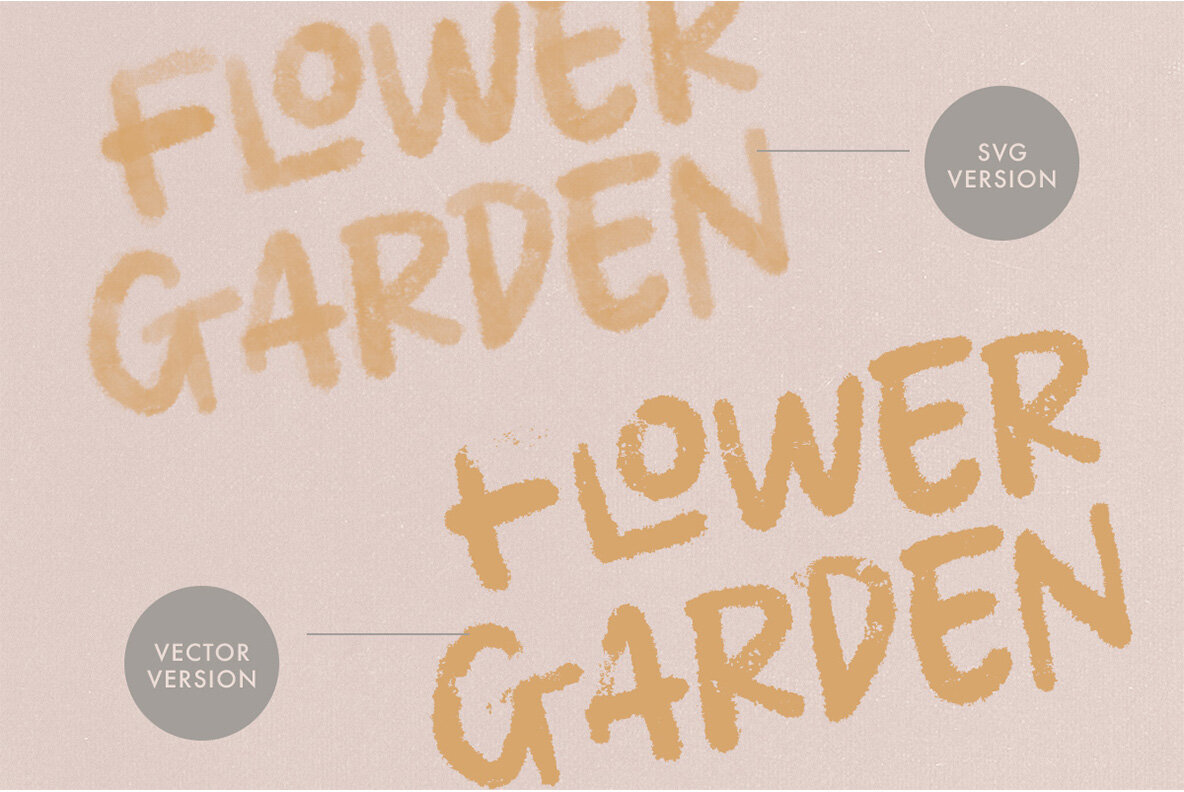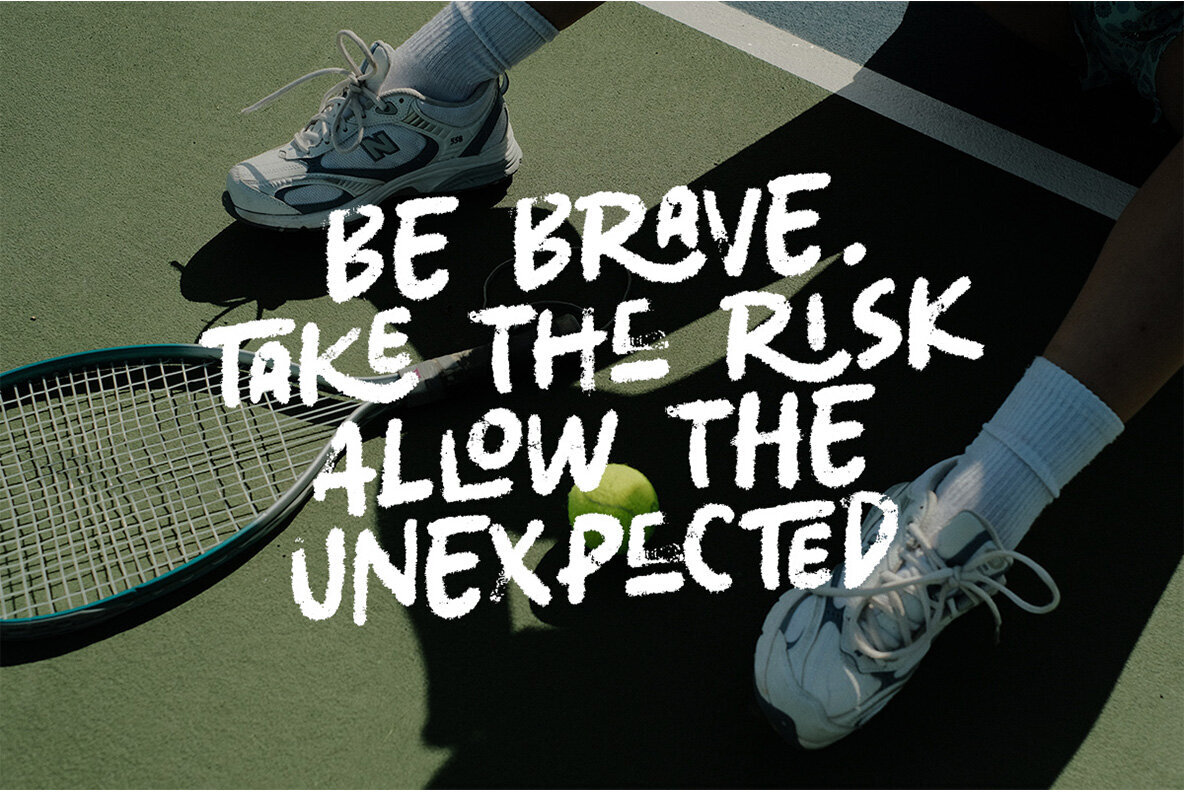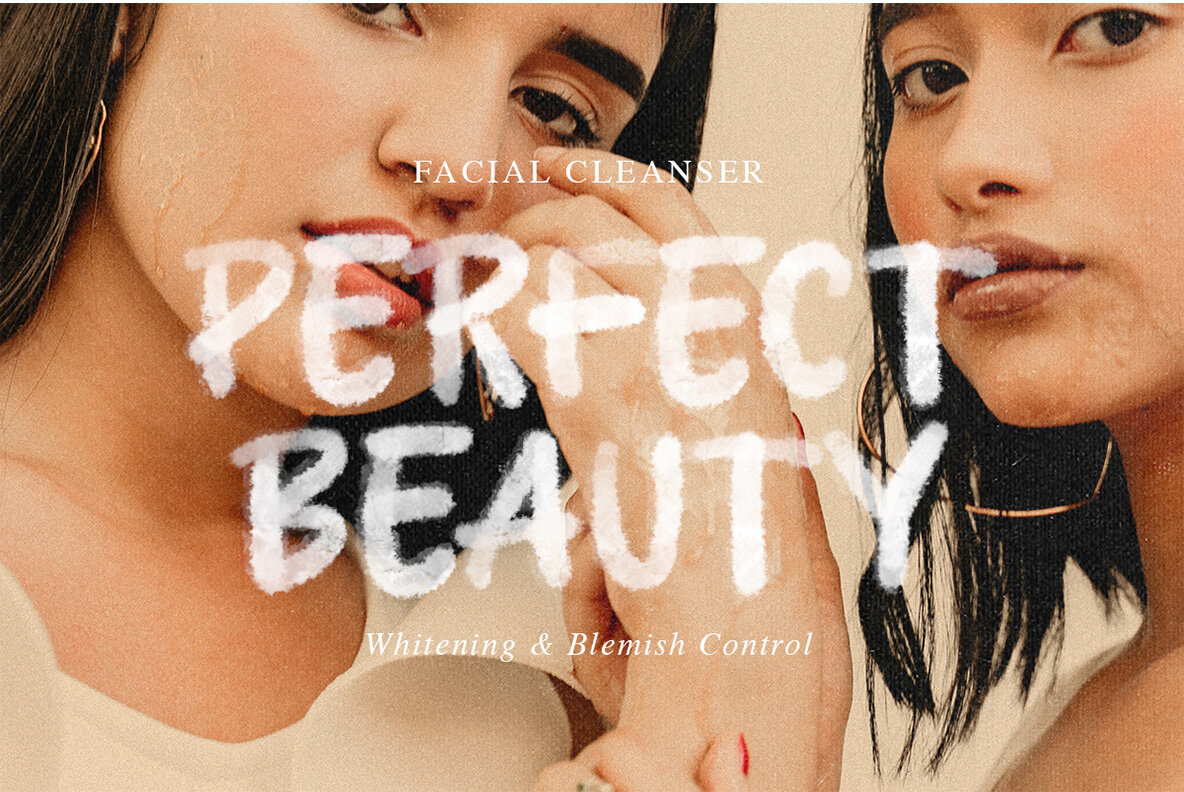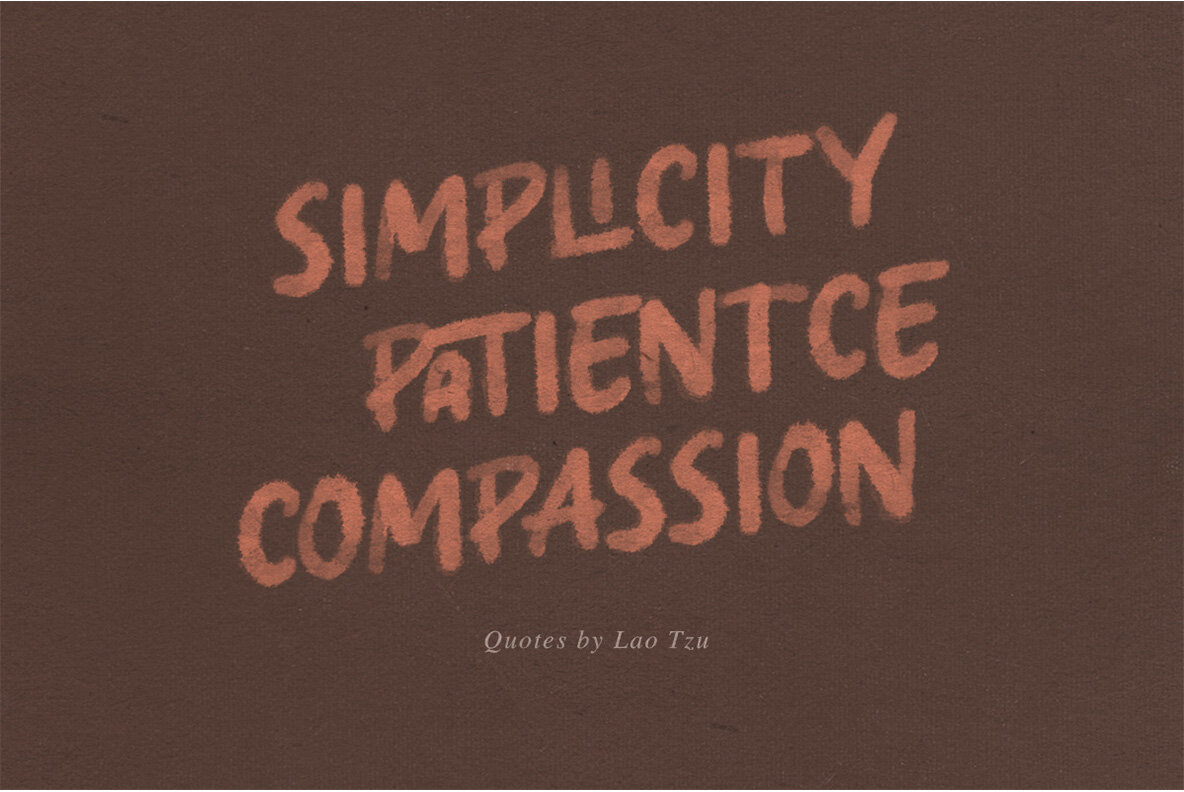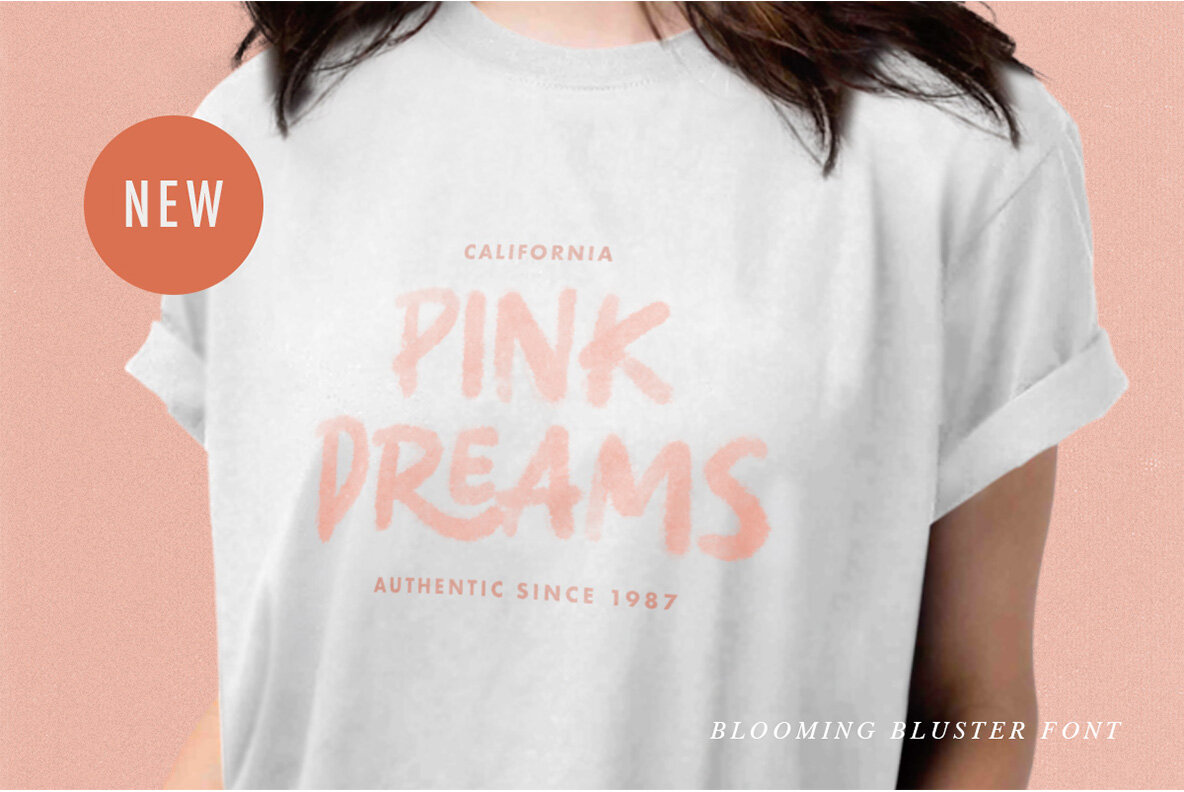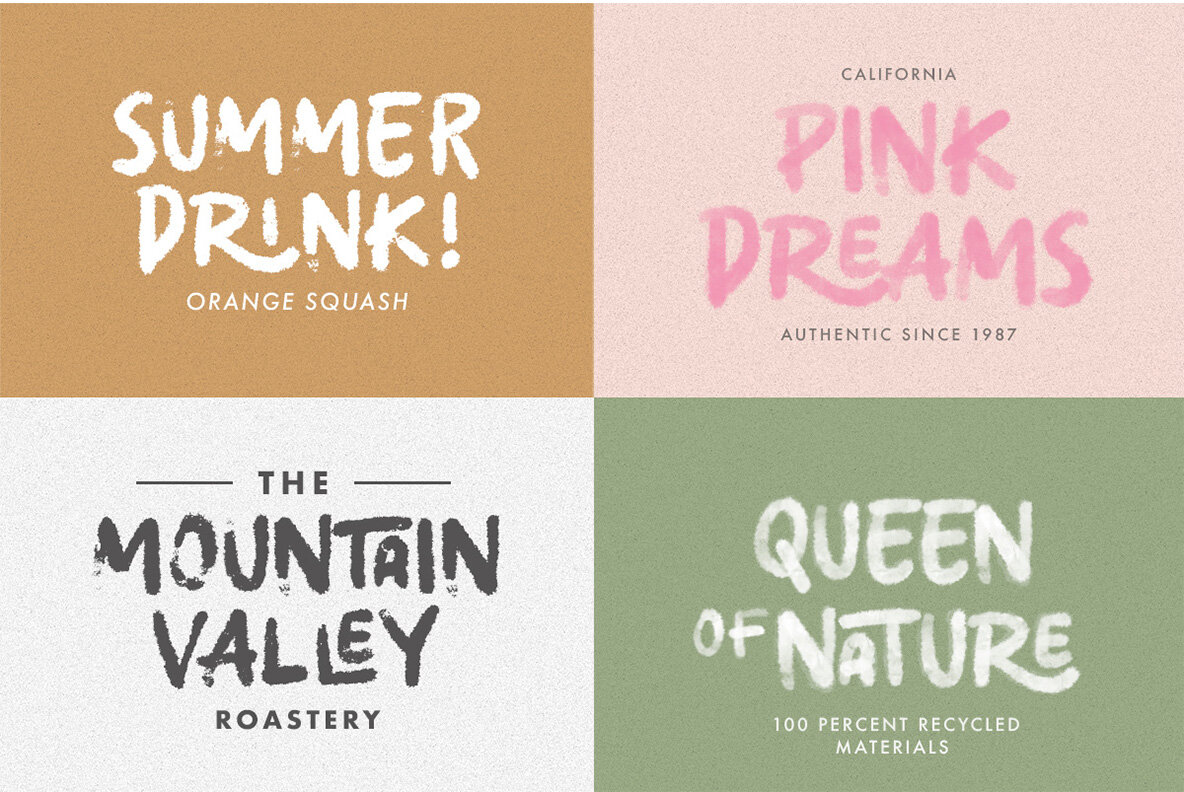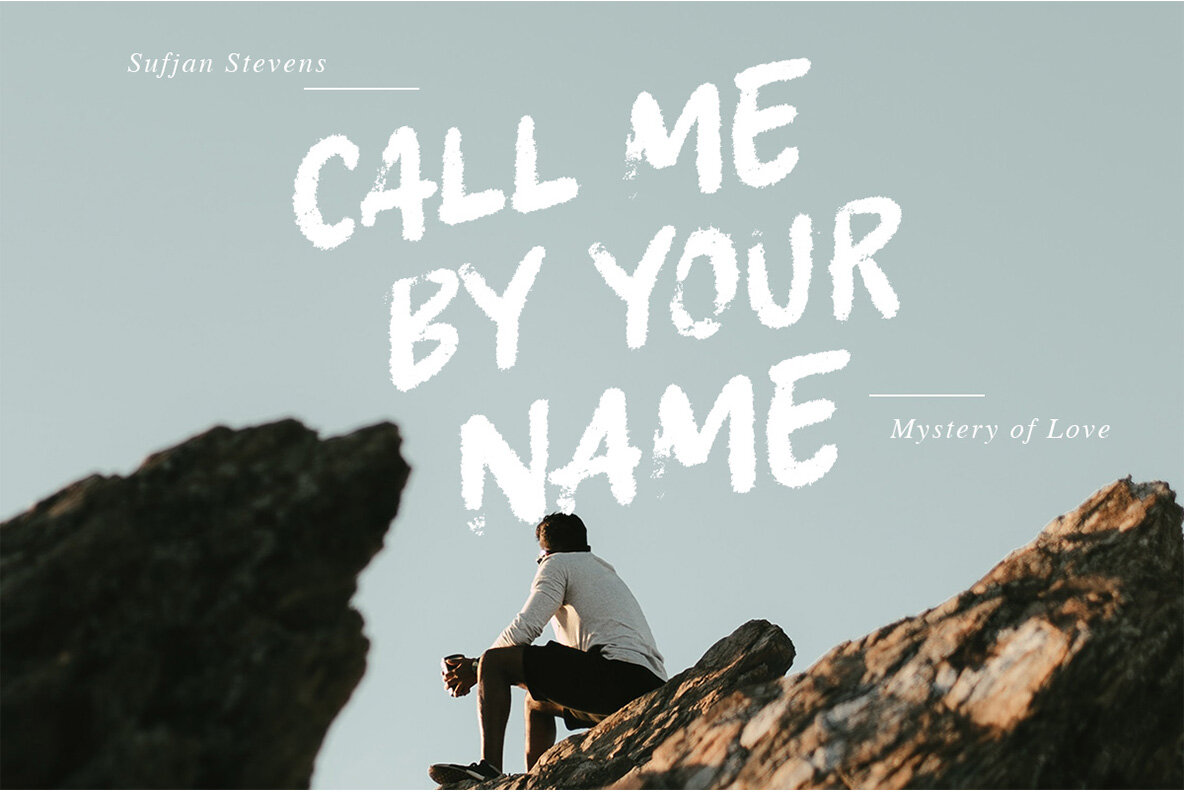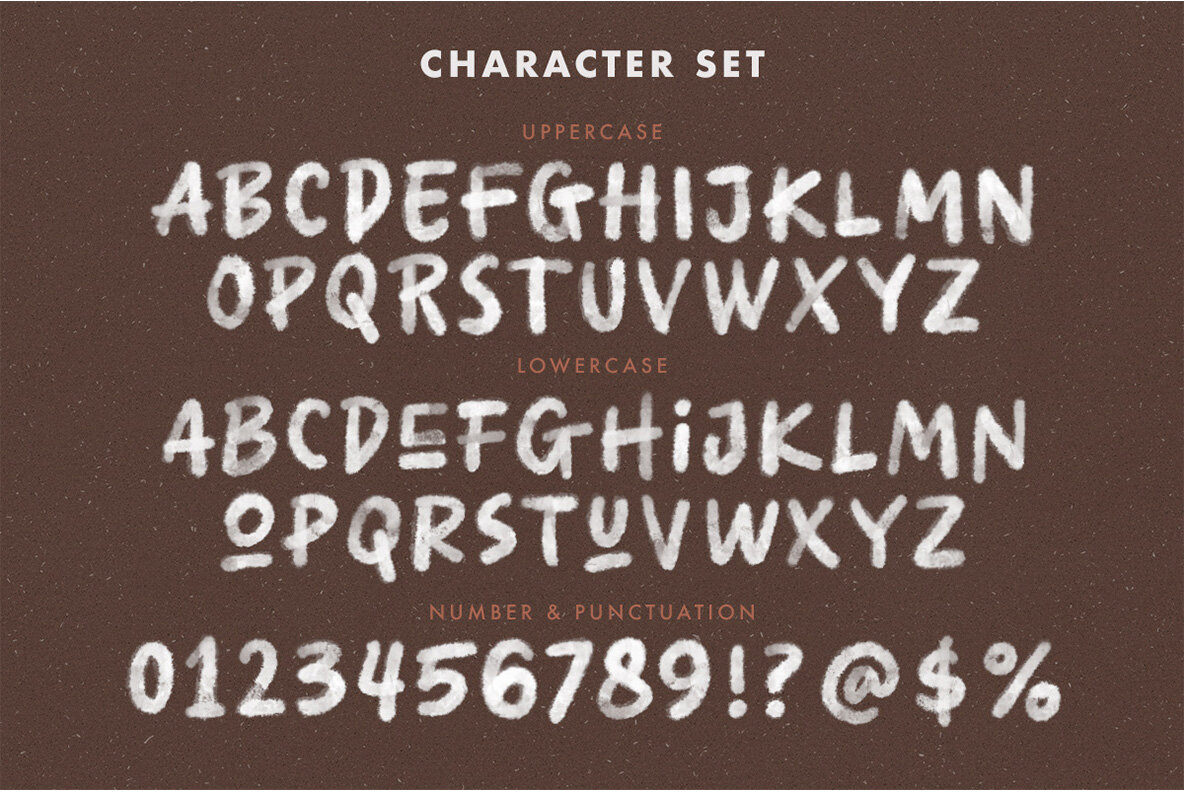
Blooming Bluster Font
Blooming Bluster is a textured SVG Sans Serif typeface. Available in two types, solid version and transparent version. This type of font is made to be applied especially in headlines.
- Blooming bluster is a textured sans serif . this type of perfectly made to be applied especially in headlines which is need a standout